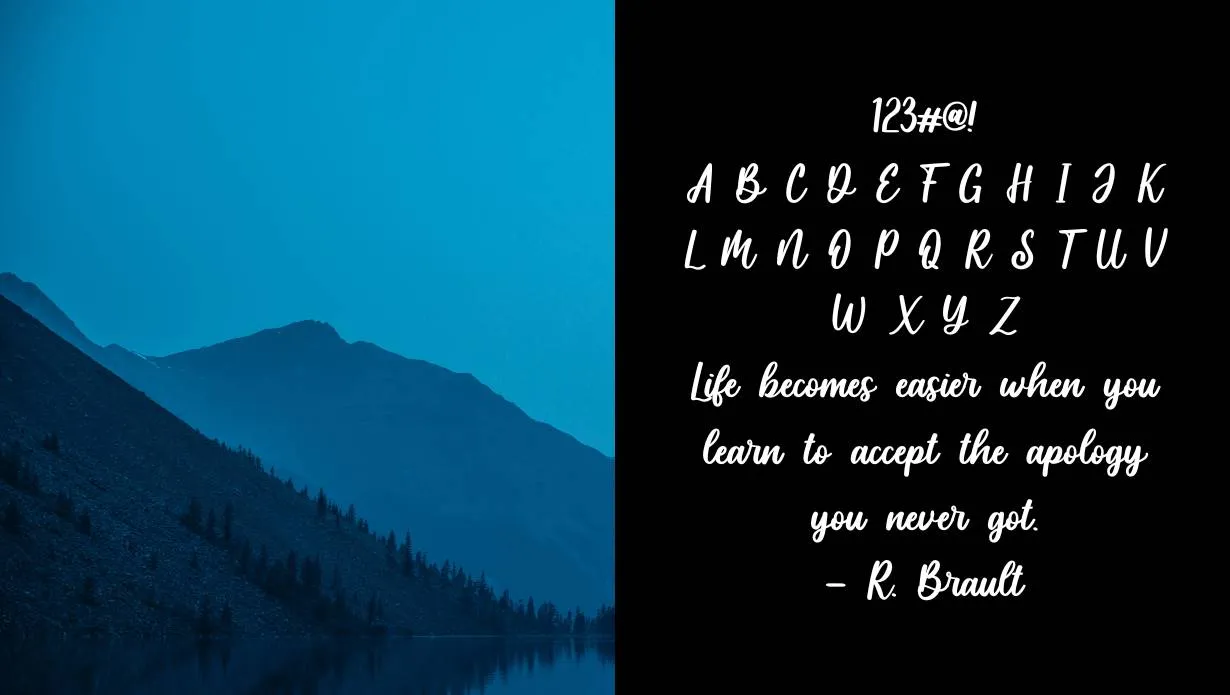
Monday Font is a script typeface that was created by designer nailetter. The font was originally designed for use on music signs in Switzerland. This font has a very distinctive look that makes it easily recognizable.
| Name | Monday Font |
| Designer | nailetter |